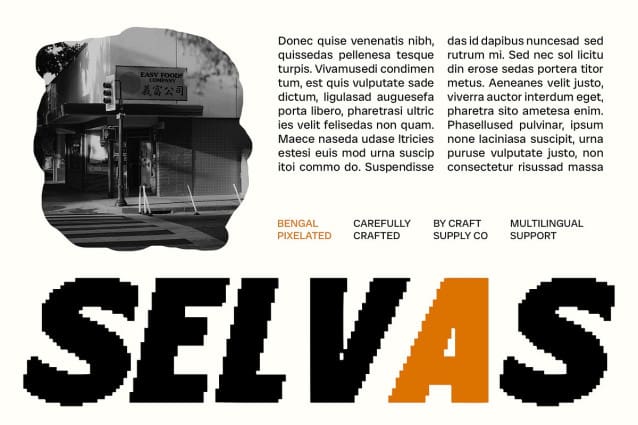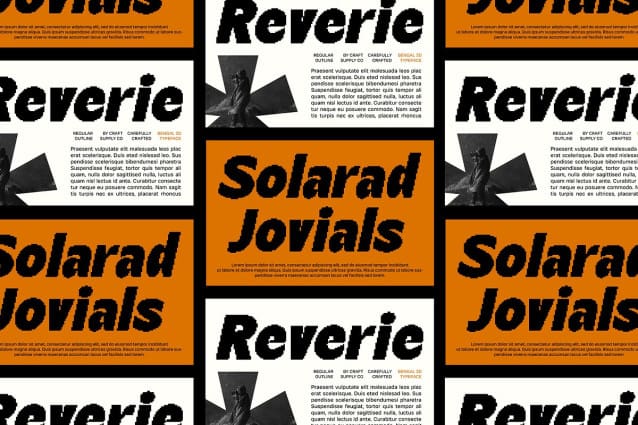
Bengal Pixel Font
Bengal Pixel Font is a bold, retro-inspired sans-serif font that features a distinct pixelated effect. The thick, sturdy letterforms are combined with a nostalgic digital look, creating a striking visual that pays homage to vintage technology. The pixelated texture adds a unique element of retro charm, making it ideal for designs that evoke a sense of digital nostalgia.
Nostalgic Digital Aesthetic This font captures the essence of early digital displays and arcade graphics, making it perfect for projects that need a vintage tech vibe. Whether you’re designing branding materials, creative posters, or tech-themed visuals, Bengal Pixel injects a touch of classic digital flair with its eye-catching pixelated style.
Ideal for Vintage Tech Designs Bengal Pixel’s combination of boldness and retro pixelation makes it a standout choice for various applications. It’s ideal for creating memorable branding, dynamic posters, and distinctive promotional materials that aim to blend modern impact with a nostalgic nod to the past.